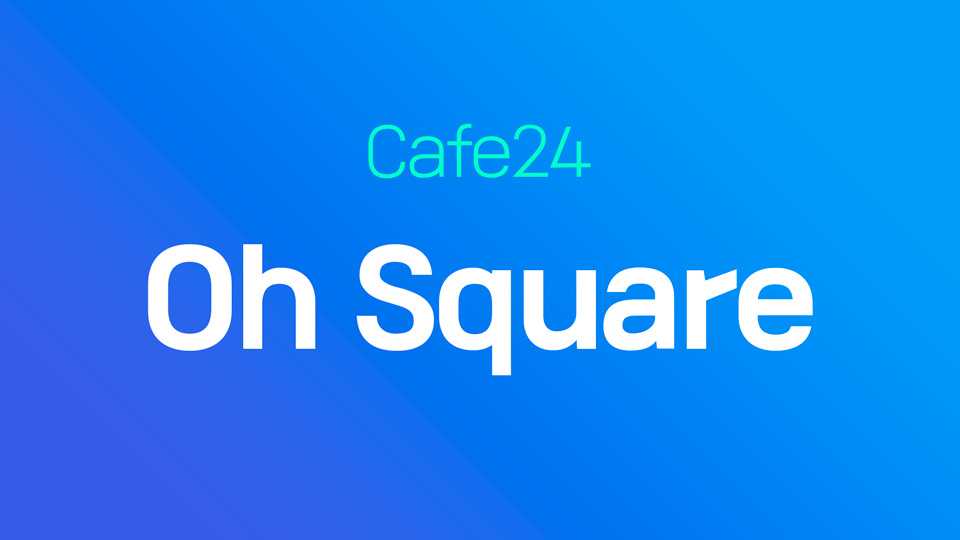
Download Oh Square typeface, a squarish geometric sans serif font family with two weights featuring considerably rounder shapes to give it a more contemporary feel.
Designer: Cafe24